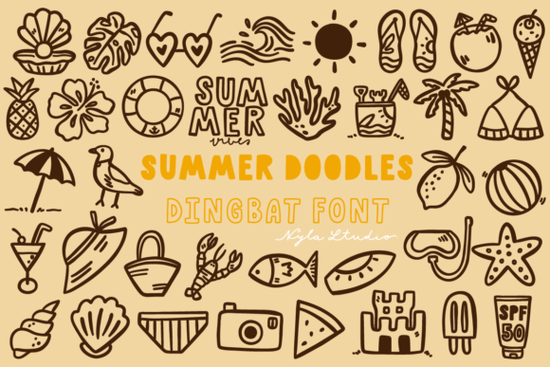
Summer Doodles Font is a fun and versatile dingbats font that brings a playful vibe to any design project. Whether you're creating t-shirts, greeting cards, or social media graphics, this font adds a fresh and retro feel that's perfect for summer themes. The collection includes two file types: .otf and .ttf, making it easy to use across different platforms and design software.
If you're a designer, craft hobbyist, or small business owner looking for a unique way to add visual interest to your work, Summer Doodles Font could be just what you need. Its cute and whimsical style makes it ideal for anything from invitations to packaging, and it’s especially popular among those who enjoy creating handmade or print-on-demand items.
One of the standout features of this font is its flexibility. It works well with both text and illustrations, allowing you to incorporate it into a wide range of creative projects. You can use it to create eye-catching posters, add flair to logos, or even decorate digital illustrations. Its simplicity and charm make it a go-to choice for anyone wanting to bring a little summer fun to their designs.
What Makes Summer Doodles Font Unique?
Unlike standard fonts, dingbats like Summer Doodles Font offer a visual element that can enhance the overall look of your work. Instead of just text, you get a set of icons and symbols that can be used to highlight key points, add decorative touches, or create a cohesive theme. This makes it a great tool for designers who want to add personality to their projects without relying on complex graphics.
The font’s playful nature also makes it a good fit for retro and vintage styles. It pairs well with other classic design elements, such as hand-drawn illustrations or pastel color schemes. Whether you’re designing for a beach-themed event or a summer sale, this font helps you communicate the right mood and message.
How to Use Summer Doodles Font in Your Projects
Here are a few ideas for how you can use this font:
- Create custom t-shirt designs with cute summer icons.
- Design eye-catching social media posts for seasonal promotions.
- Add decorative elements to greeting cards or invitations.
- Enhance packaging for handmade or print-on-demand products.
Its versatility means you can experiment with different layouts and combinations to find what works best for your specific needs.
As you explore different fonts, keep in mind that the best choices often depend on the specific needs of your project. Summer Doodles Font is a great option if you're looking for something fun, easy to use, and visually appealing. It’s also worth considering how the font will look in different sizes and contexts to ensure it meets your design goals.
Whether you're a seasoned designer or just starting out, Summer Doodles Font offers a simple yet effective way to add a touch of creativity to your work. With its playful style and practical features, it’s an excellent addition to any design collection.